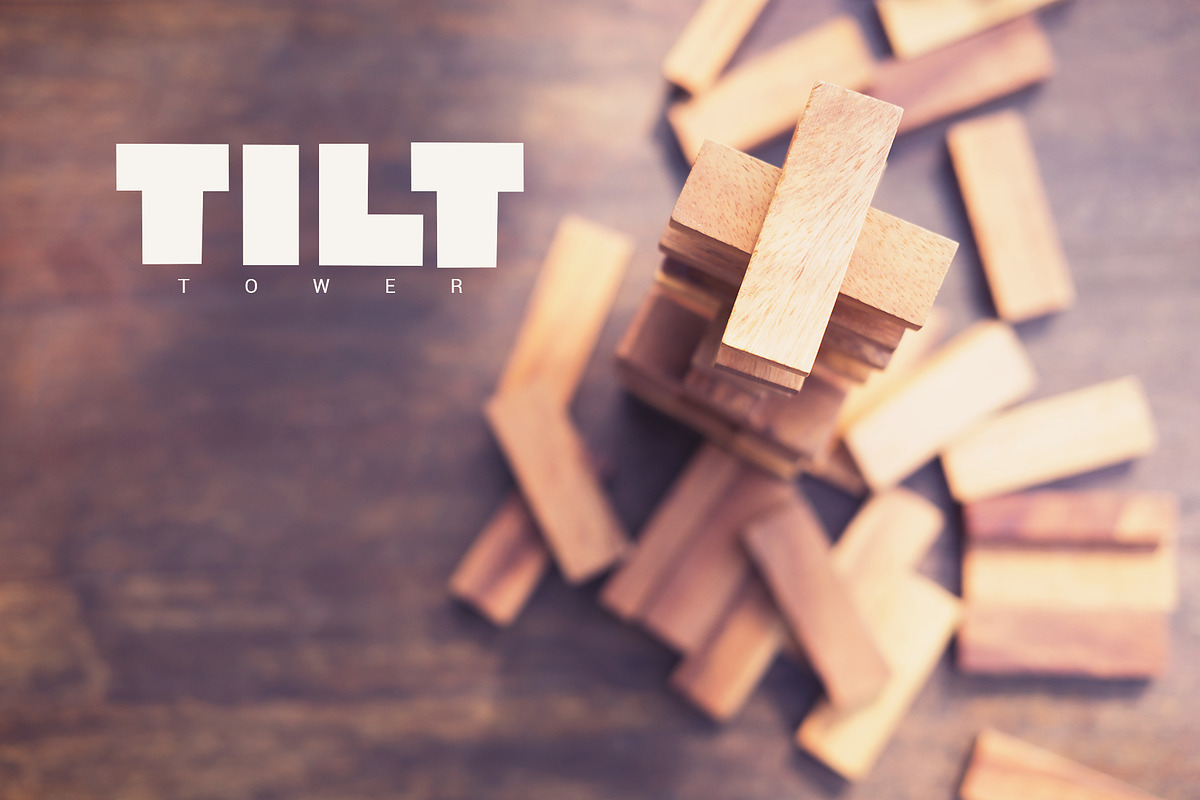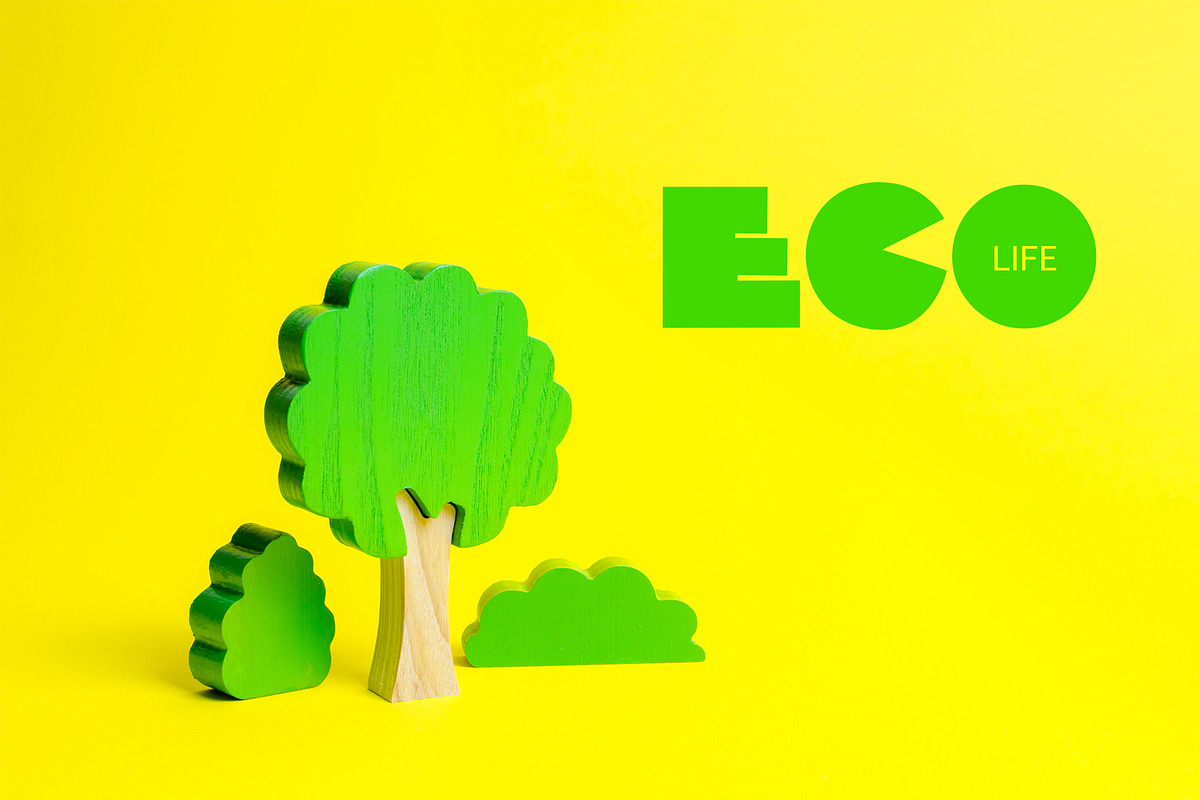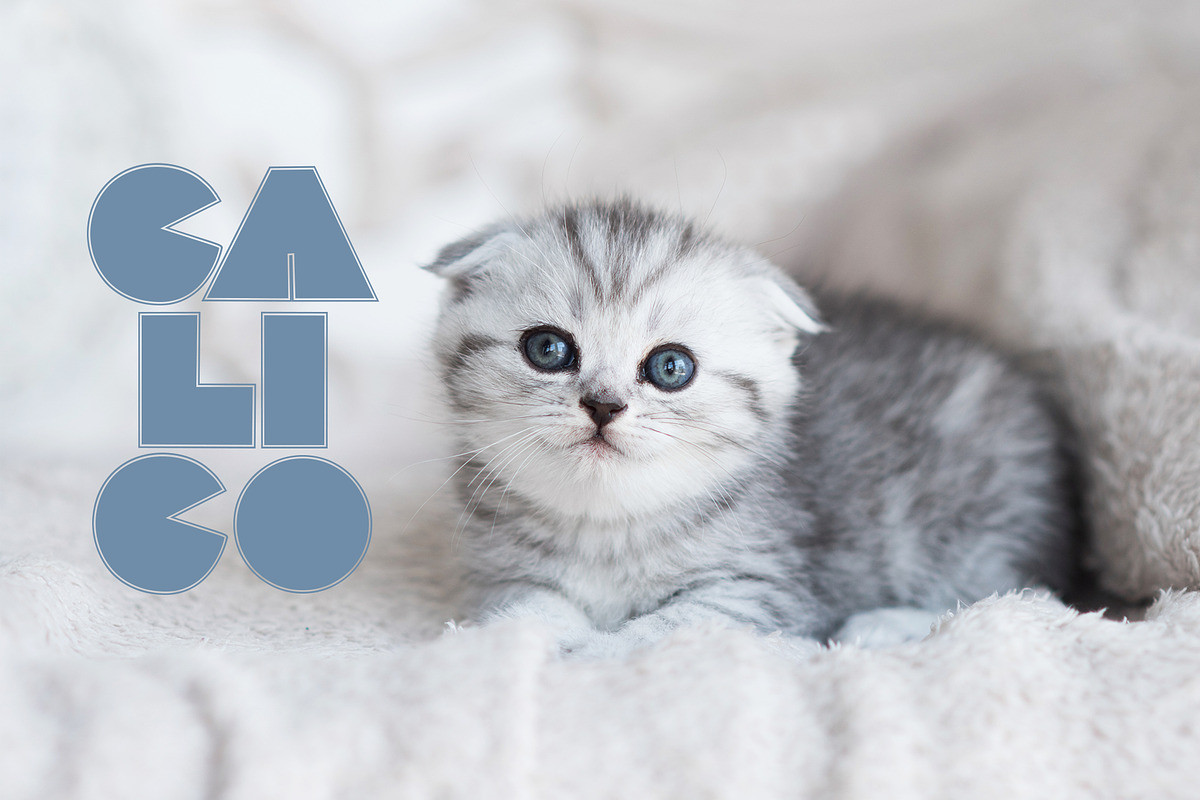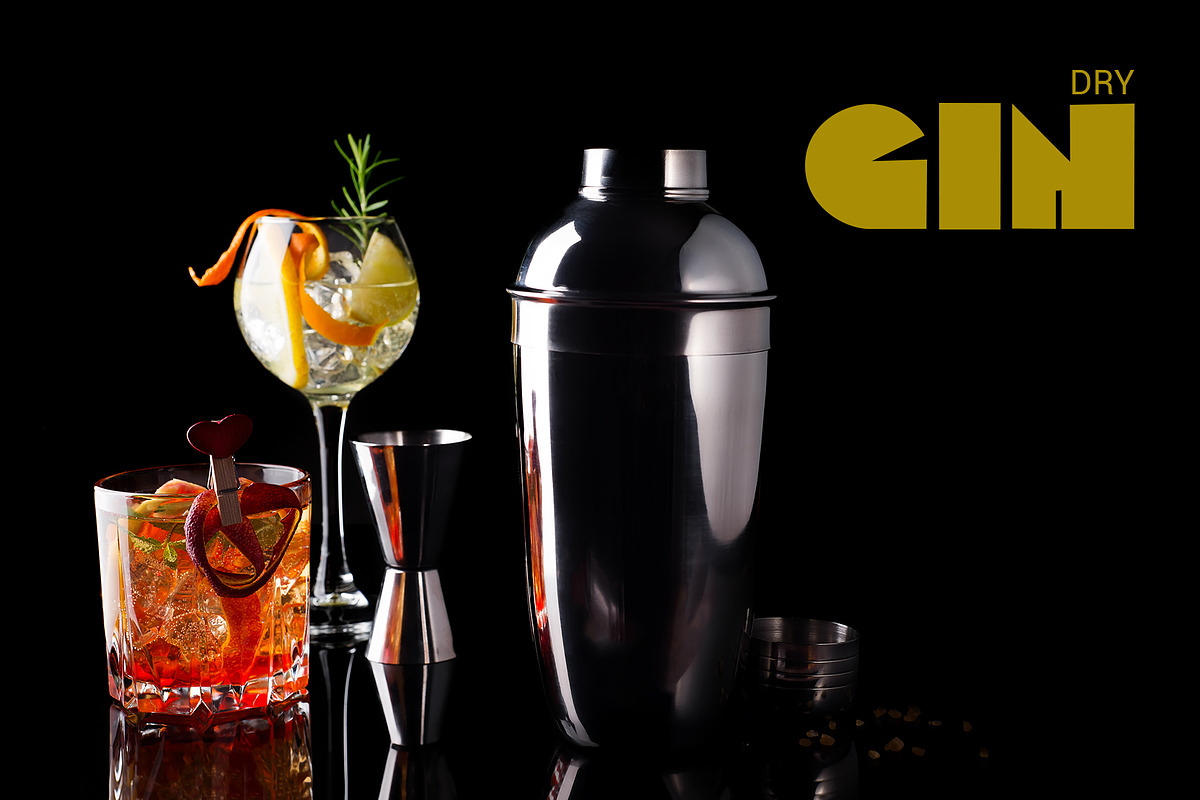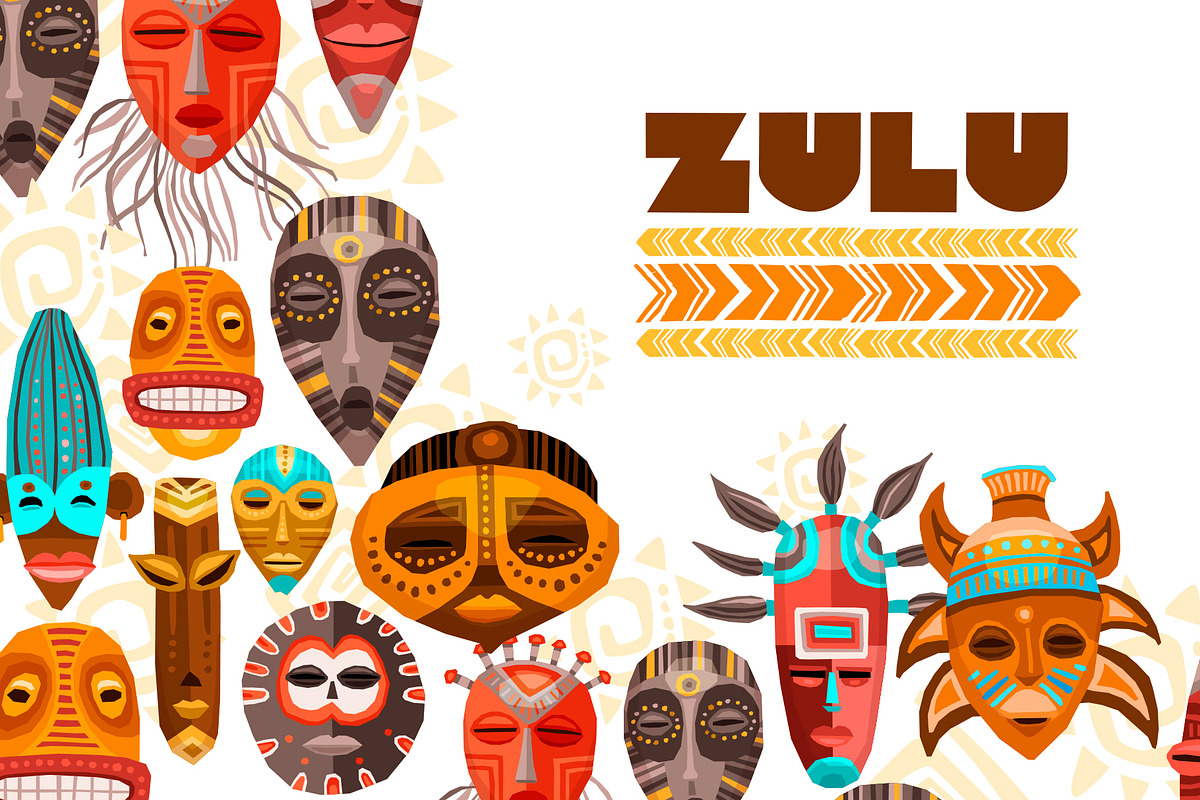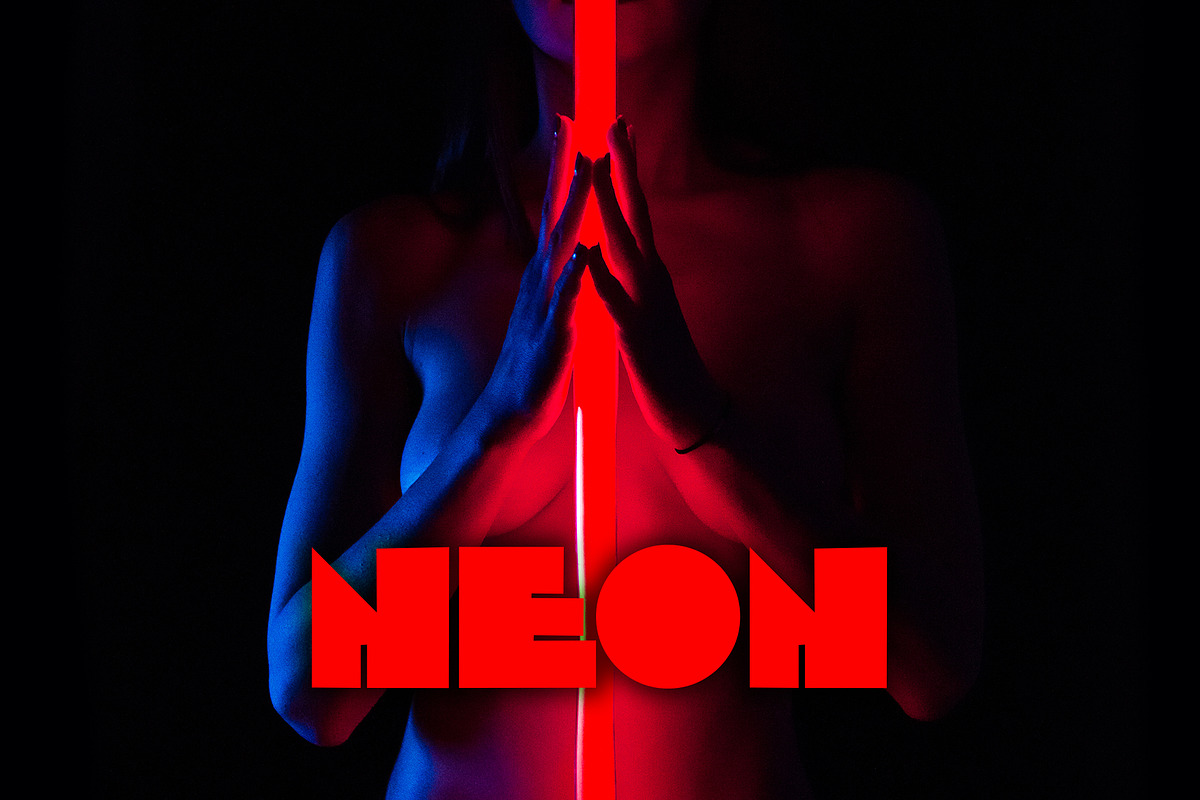
Lococo Font Family
The Lococo Family is a stylish playful family that offers loads of fun. Perfect to give a unique appearance to your designs. All punctuations, extensions, numbers and webfont.
Lococo Font Family by SmartDesigns fits naturally into Branding, posters, packaging, typography.